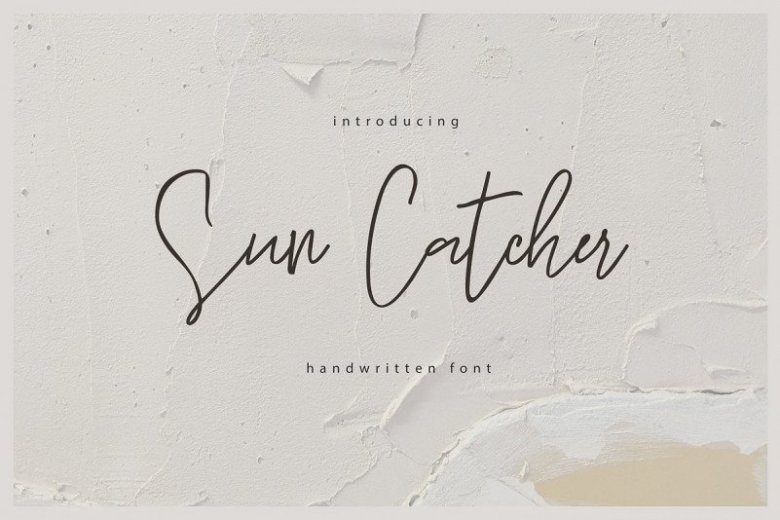
Sun Catcher Handwritten Font
Say hello to the Sun Catcher Font! This is handwritten font. It is slender, feminine and classy, while still maintaining a friendly feel! It is designed and shared by Mr.Typeman. Sun Catcher Handwritten Font with its pleasant and elegant style. If you want to add a certain charm, appeal and allure in your projects, Sun Catcher is just what you need. Sun Catcher comes with uppercase, lowercase, standard punctuation and special letters for most of the European languages.